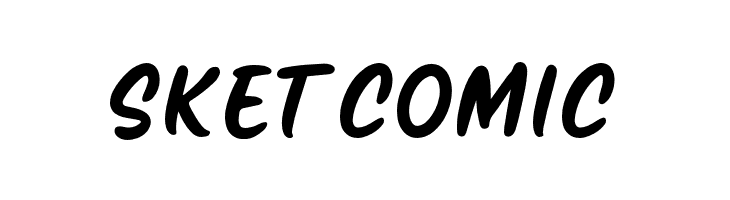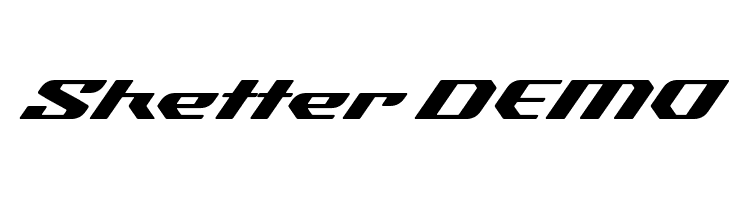
A playful set of hand-drawn smiley faces with various expressive emotions.
A whimsical and elegant script font with flowing, cursive forms and intricate loops.
A dynamic, sketchy font with a hand-drawn, energetic style.
A playful, hand-drawn font with smooth, rounded edges and a casual style.
A playful, bold, and dynamic hand-drawn style font.
A bold, playful font with rounded, dynamic letterforms.
A decorative and bold font with calligraphic influences, ideal for display use.
A playful, handwritten font with bold, rounded characters and wide spacing.
A bold, angular font with a futuristic and dynamic style.